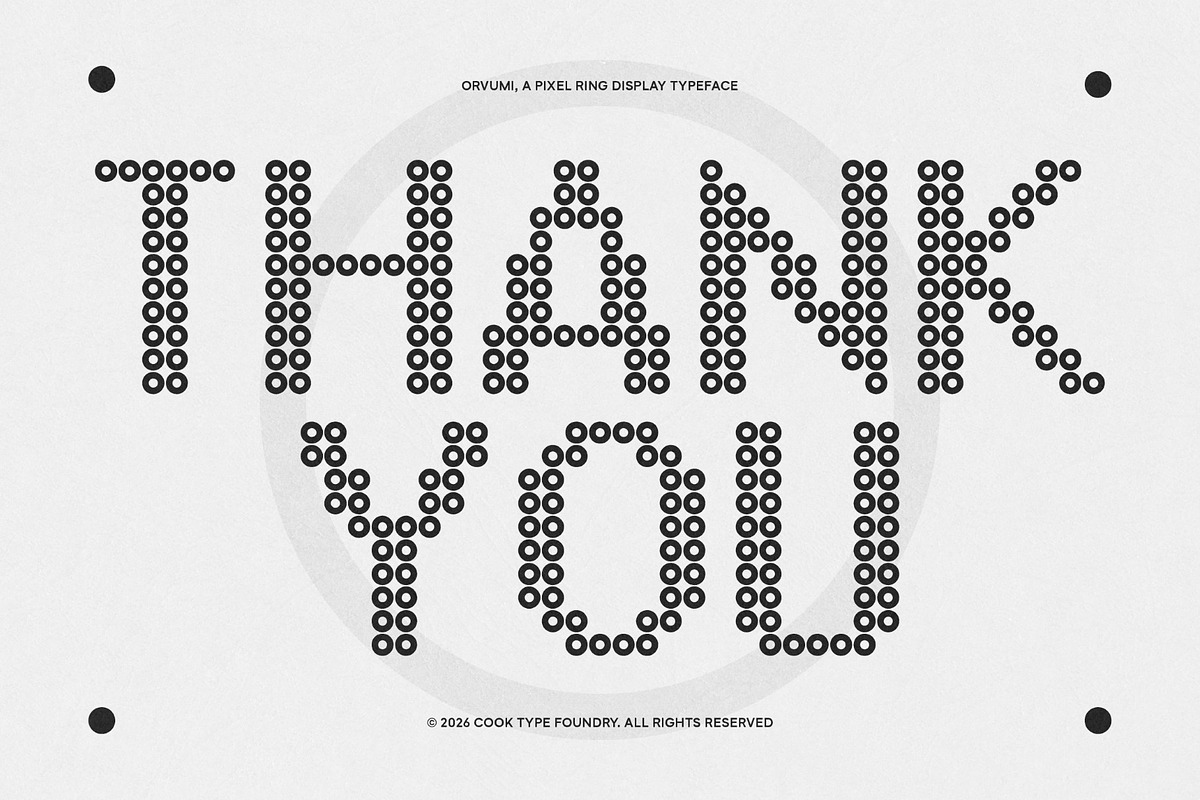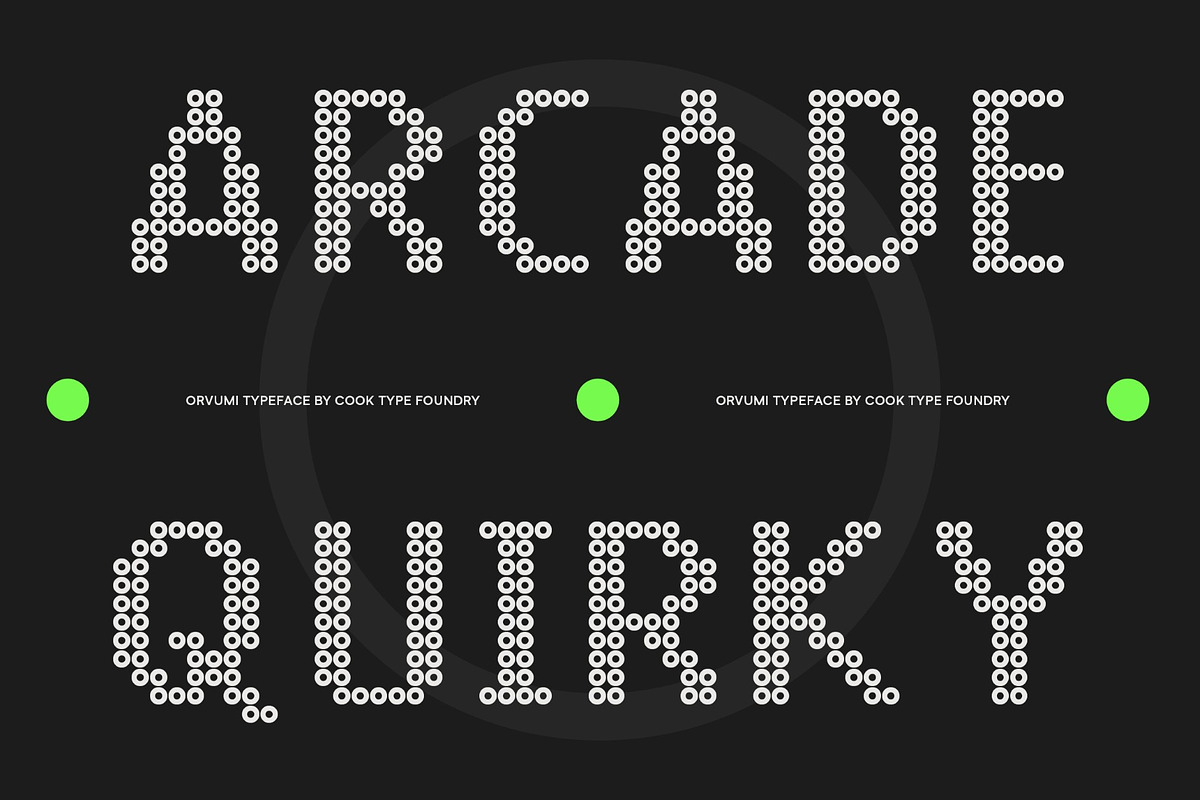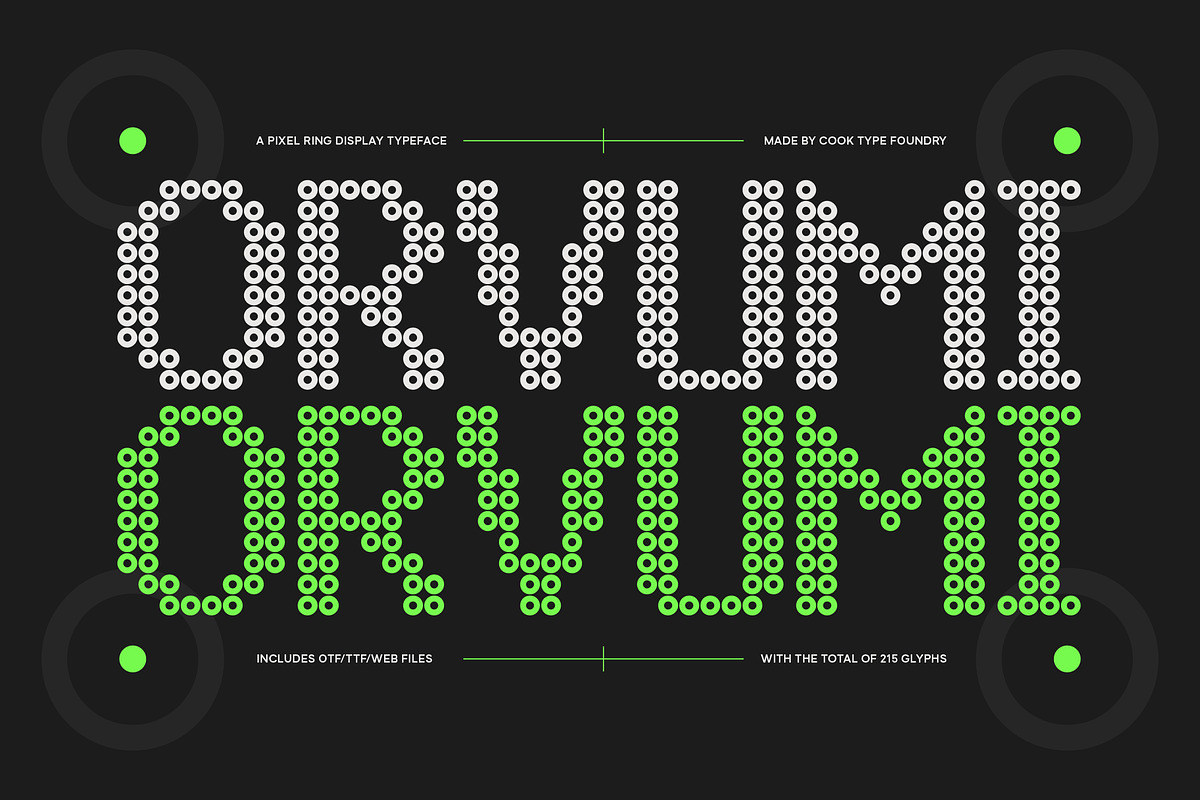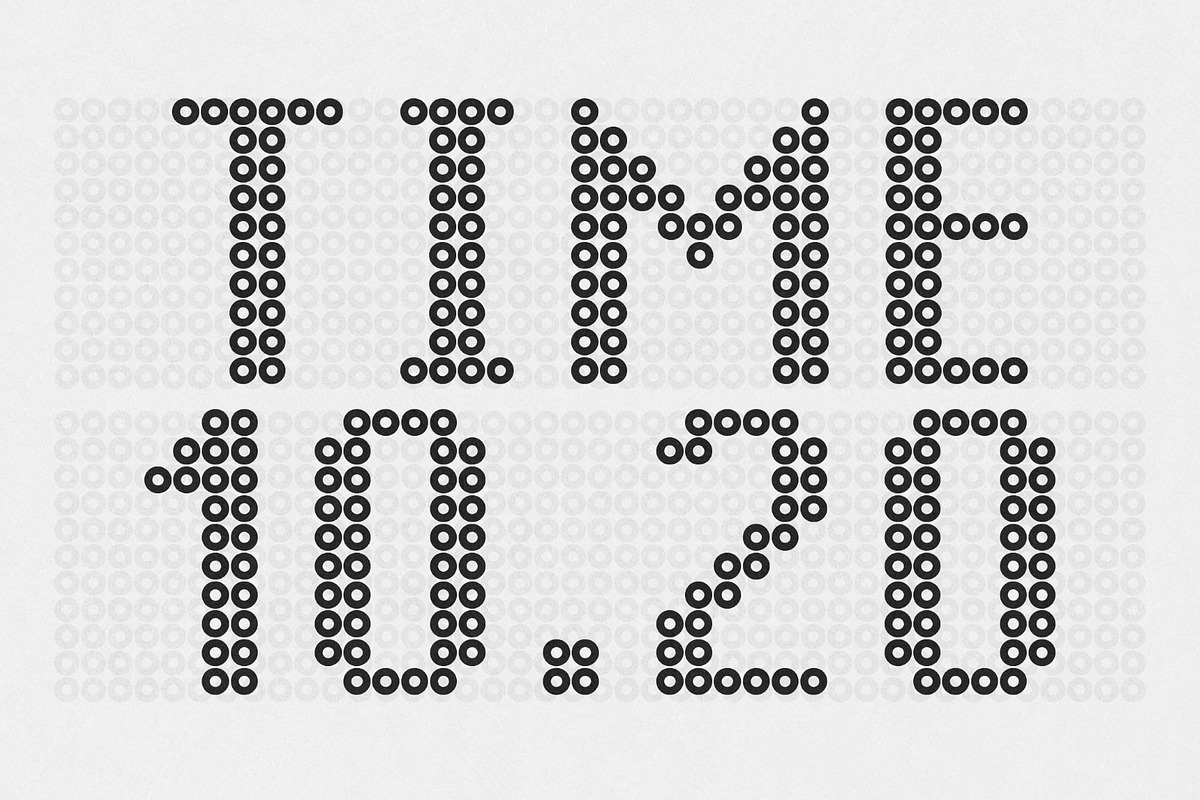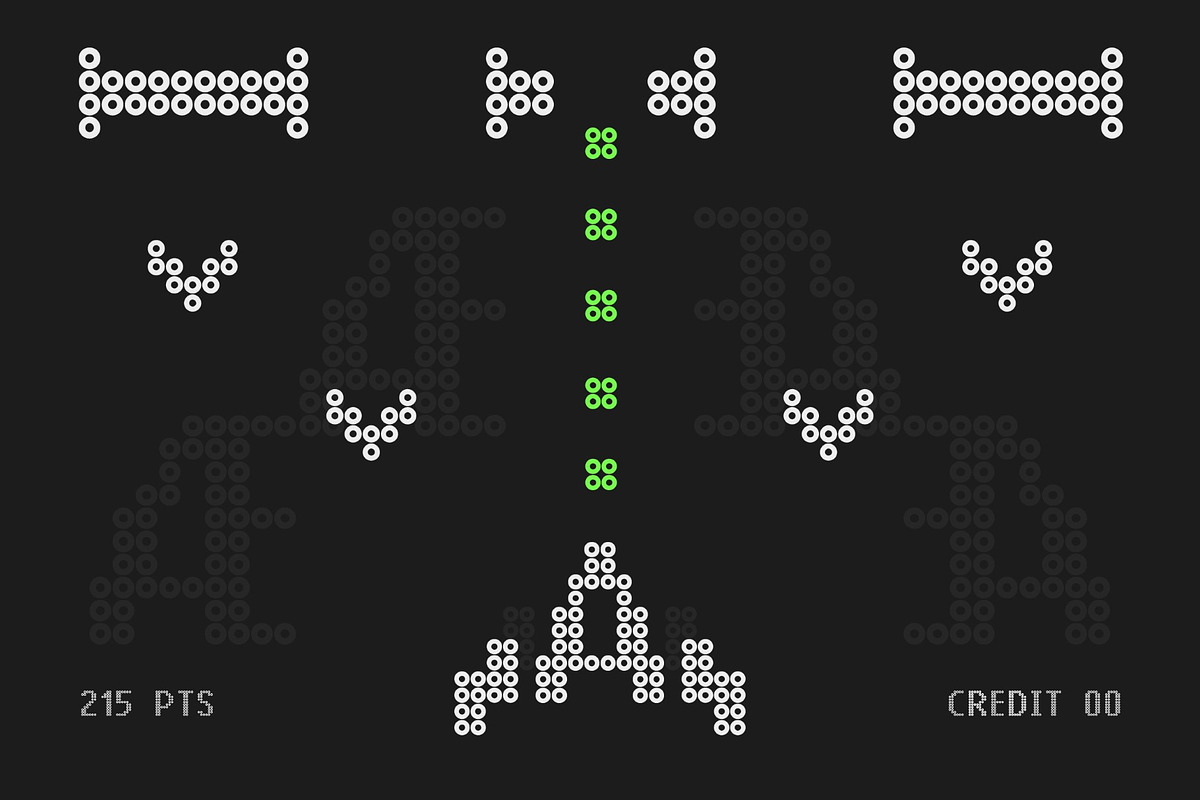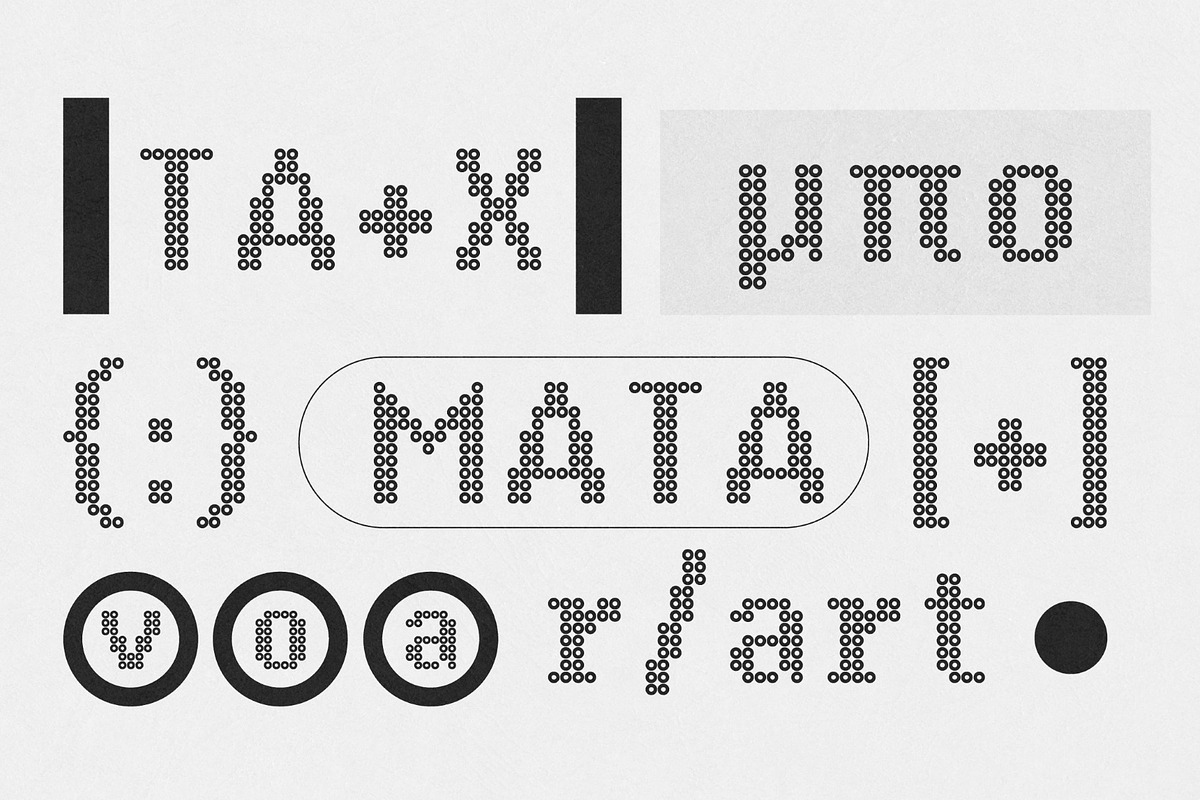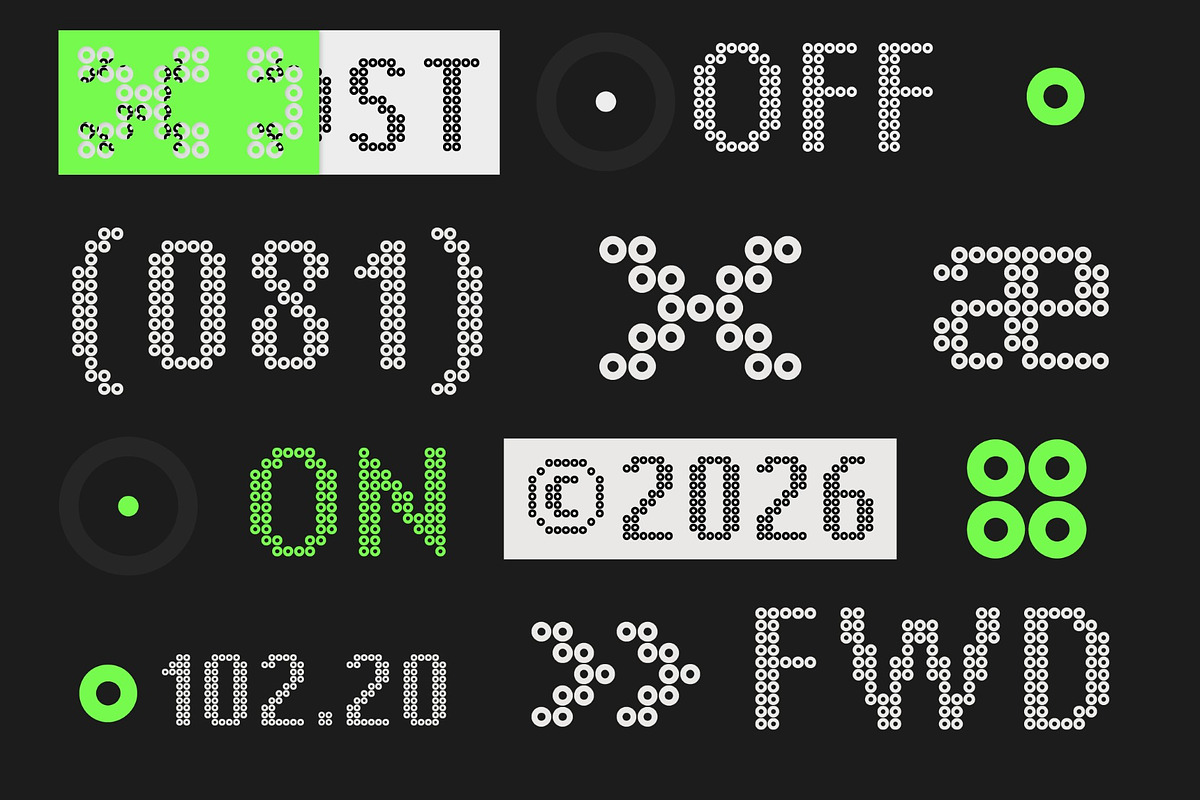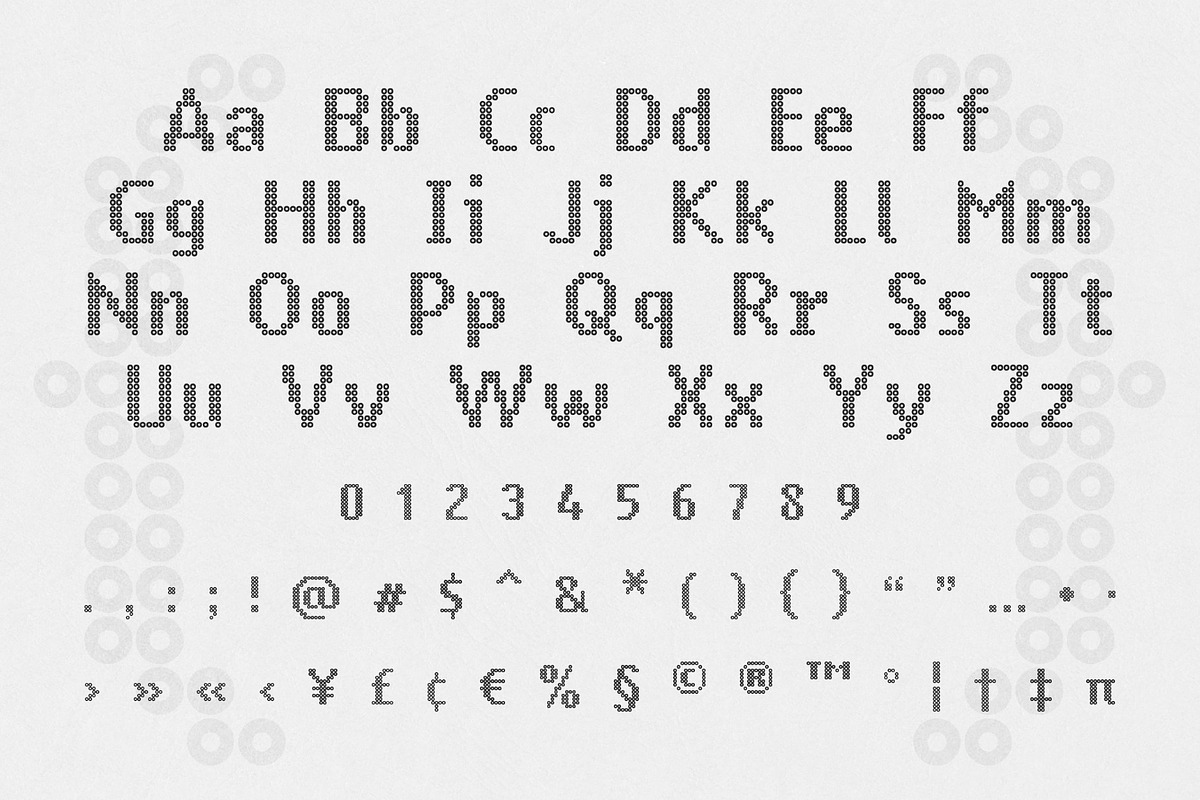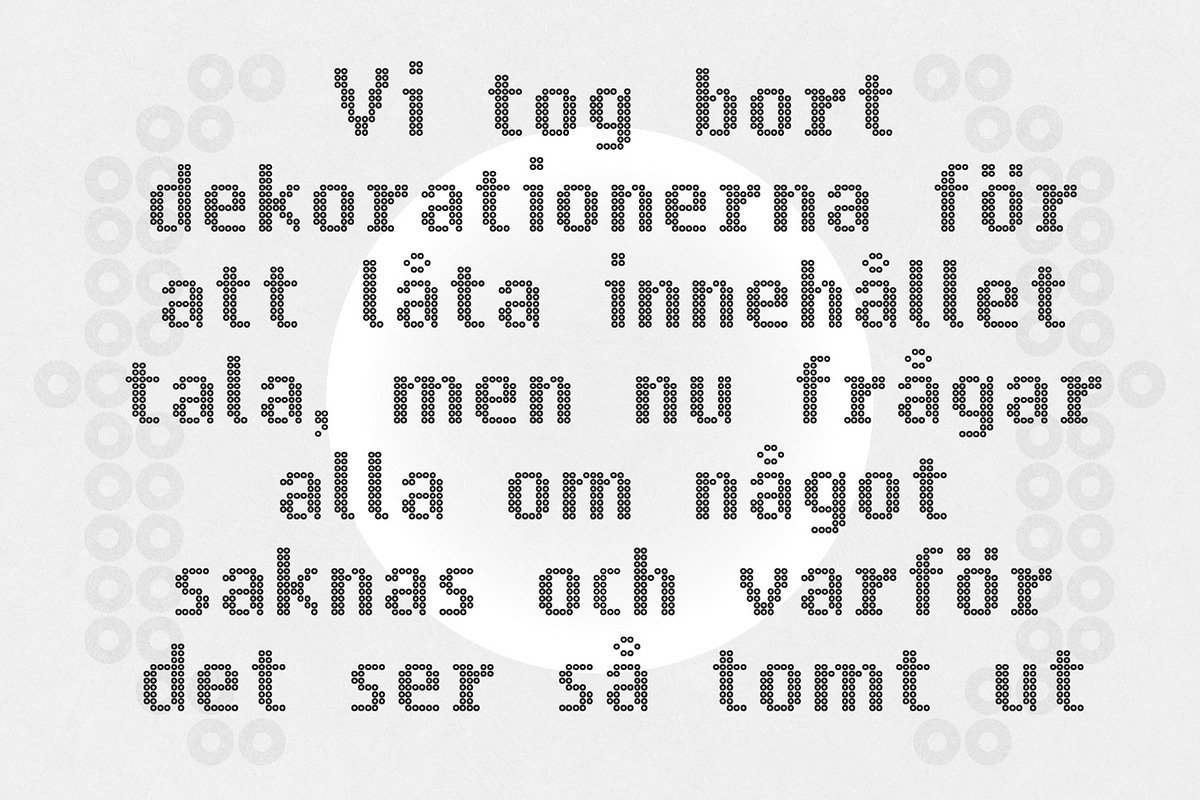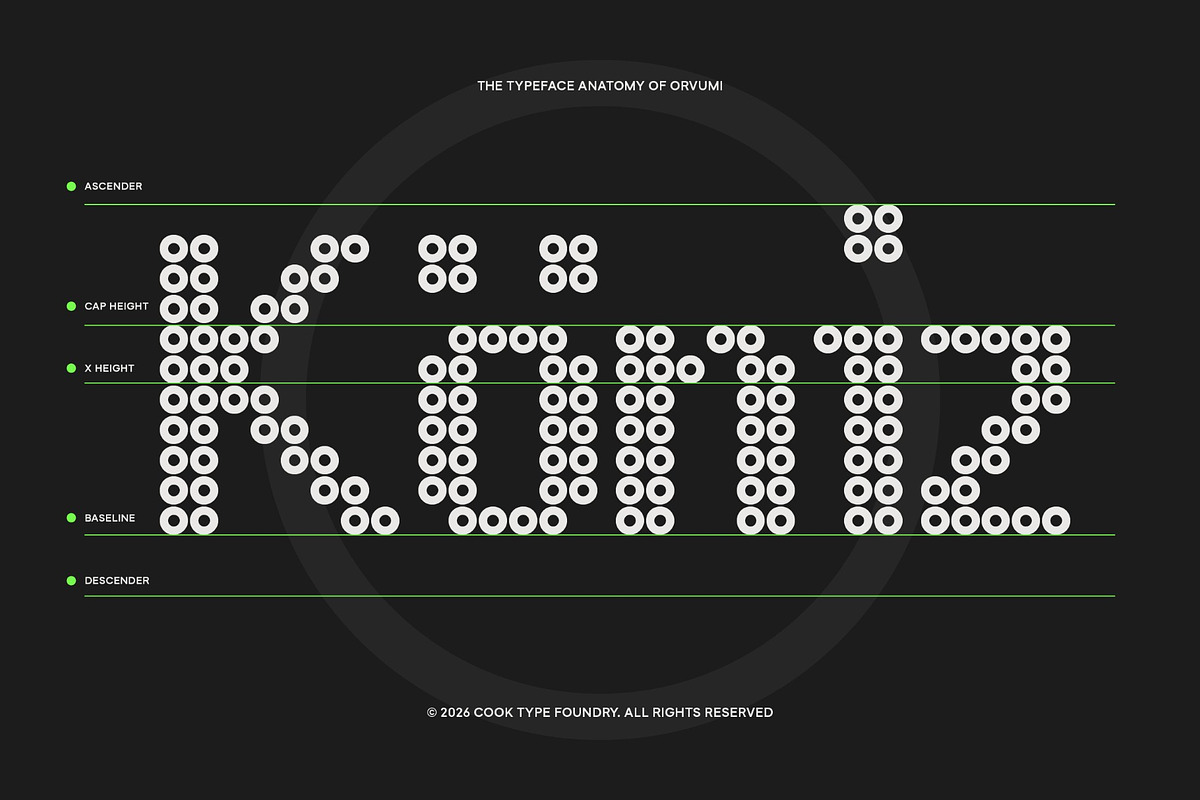
Orvumi
Orvumi is a playful pixel ring display typeface built from circular pixel shapes, creating a distinctive digital and retro-futuristic aesthetic. Its rounded modular construction gives each character a unique arcade-inspired appearance while maintaining a clean and highly recognizable silhouette. Orvumi brings a fun, energetic, and pixel-driven personality to modern visual designs.
It is perfect for headlines, logotypes, magazines, packaging, quotes, movies, games, cover albums, book covers, and flyers, it's a perfect solution for creating eye-catching designs that stand out in any context.